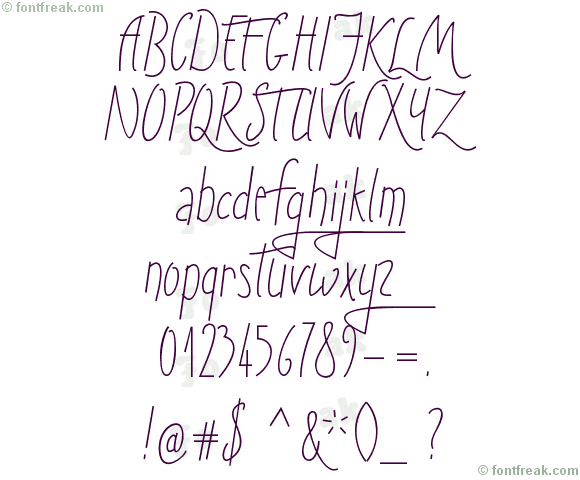
Sunny Winter
The "Sunny Winter" font by Roland Huse is a delightful handwritten typeface that captures the essence of warmth and cheerfulness, making it an excellent choice for a variety of projects. This font, categorized as a script style, boasts a playful yet elegant aesthetic, characterized by its smooth, flowing strokes and whimsical curves. The stroke weight is consistent, with gentle variations that add a touch of personality without compromising legibility. The spacing is thoughtfully balanced, ensuring that each letter connects harmoniously with its neighbors, enhancing the overall fluidity of the text.
"Sunny Winter" is particularly well-suited for a range of creative applications. Its charming style makes it ideal for wedding invitations, where a touch of romance is desired. Additionally, it works beautifully for holiday-themed greeting cards, capturing the spirit of winter with a sunny twist. Restaurant menus can also benefit from its inviting appearance, enticing diners with a warm and welcoming vibe. Moreover, this font can elevate social media graphics, making posts more visually appealing and engaging for audiences.